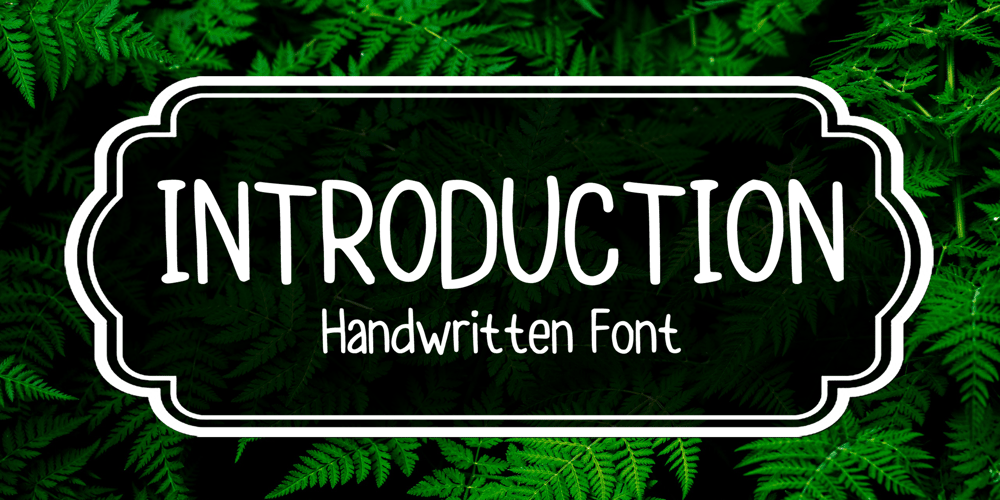
Introduction Font Family was designed by Gabriel Valentinus and published by Mvmet. Introduction contains 1 styles and family package options. Introduction is a casual handwritten font. It is awesome for creating cool designs ranging from t-shirts, book designs, restaurant menu, blog writing, greeting cards to stickers, or anything that needs a casual touch. Fall in love with its incredibly cool style, and use it to create lovely designs!